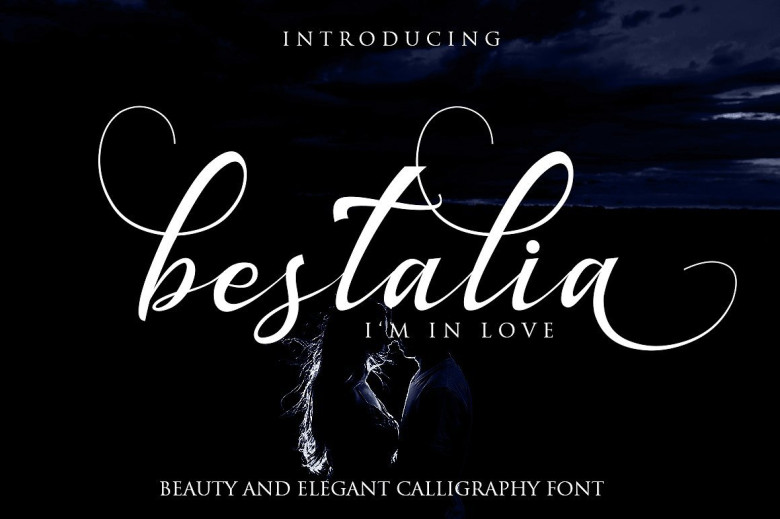
Bestalia Script Font
Introducing Bestalia. It is designed and shared by Haksen. This is hand-drawn fonts truly give off a real personal touch to your projects It is perfect used for various purposes such as editorial design, branding, art quote, book / cover title, poster, apparel design, product packaging, label, special events or anything that need hand-drawn taste.